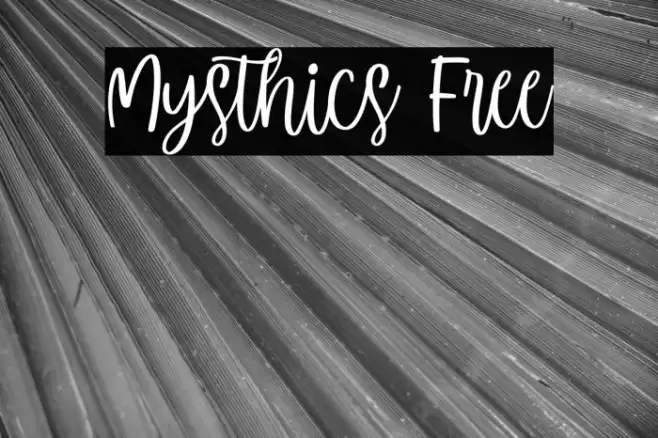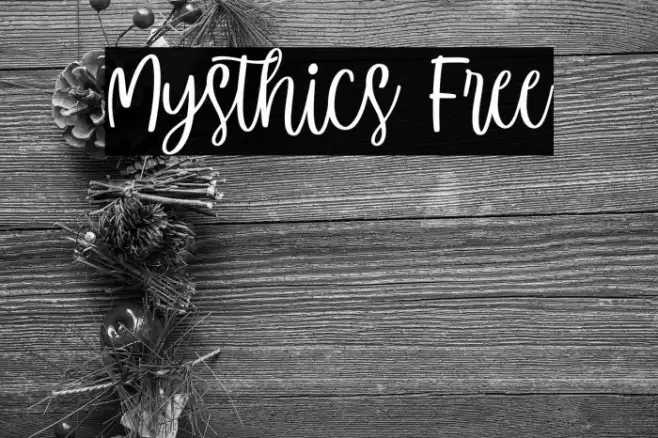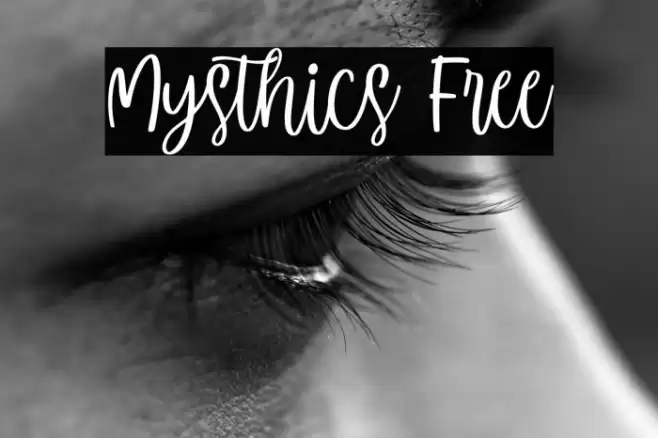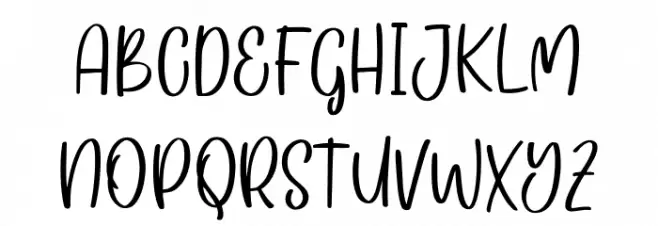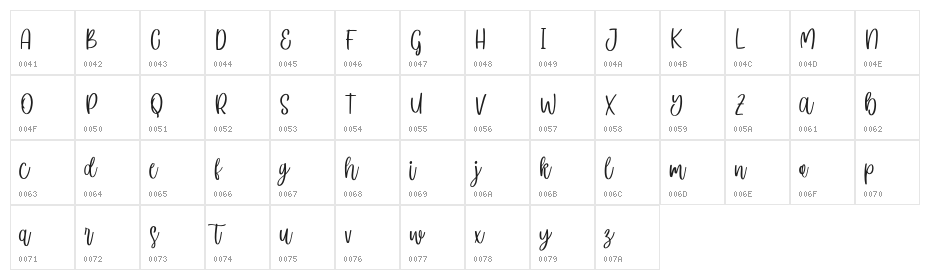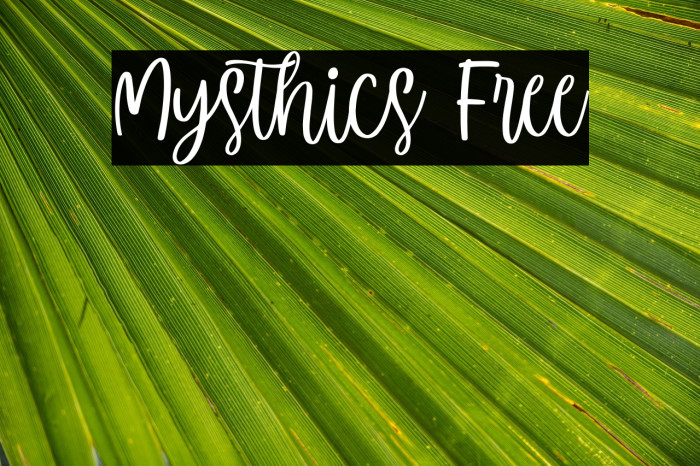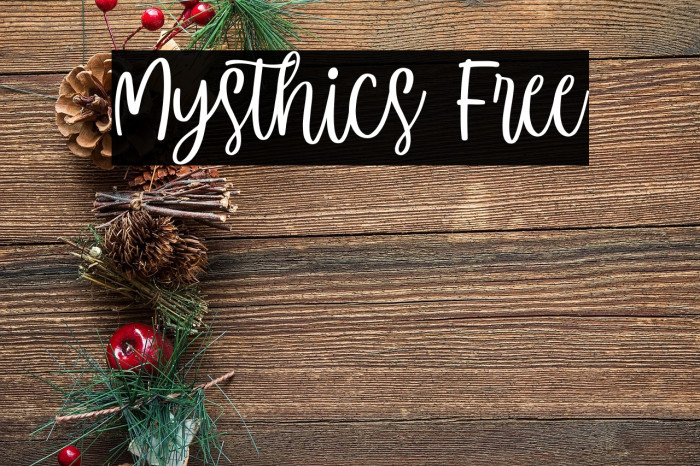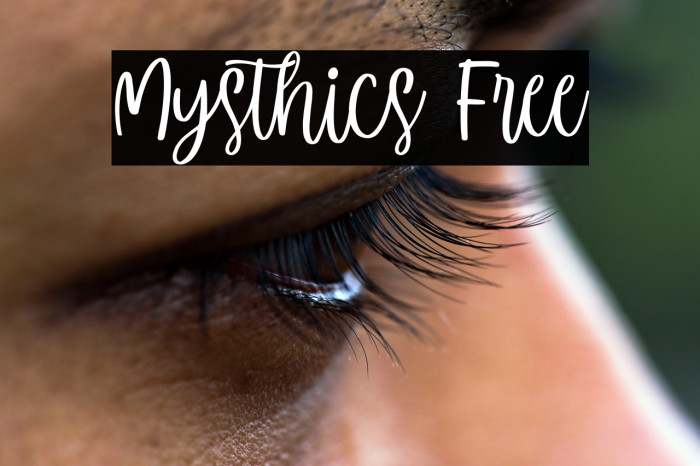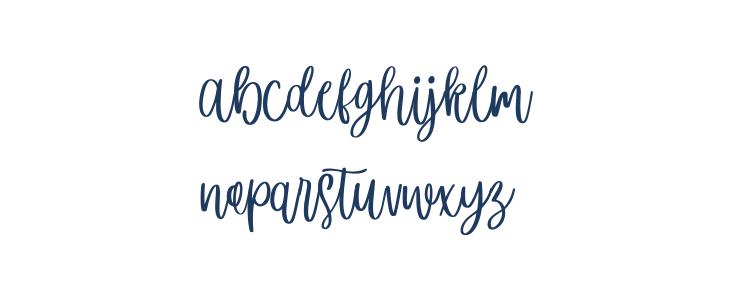
Mysthics Free Font
Mysthics Free Description
This font features a playful and flowing handwritten style, characterized by its smooth curves and slightly irregular letterforms that give it a personal and informal feel. The uppercase letters maintain a consistent height, while the lowercase letters exhibit a charming variability in their ascenders and descenders, adding to the font's whimsical nature. The strokes are moderately thick, providing a good balance between readability and decorative appeal. This font is versatile, suitable for projects that require a touch of elegance and creativity, such as invitations, greeting cards, and personal branding. Its unique style makes it stand out, while still being legible and approachable.
A playful and flowing handwritten font with smooth curves and charming variability from Regular fonts.
- Proposed Projects: Ideal for invitations, greeting cards, personal branding, and creative projects.